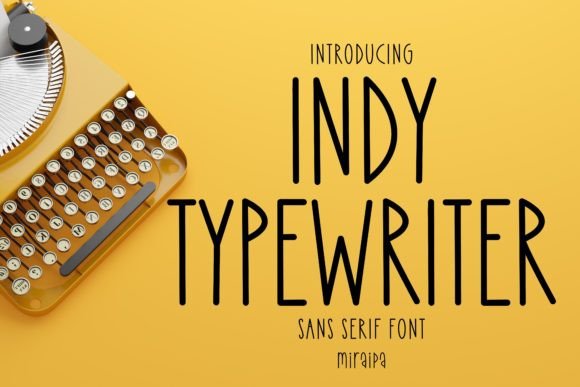
Introducing Indy Typewriter Font, the perfect addition to your font collection! Created by the talented miraipa, this modern and friendly handwritten sans serif font is specifically designed to elevate your projects and add a touch of charm to your diary planner.
With Valentine's Day just around the corner, Indy Typewriter is the ideal choice to set the mood and capture the essence of love and romance. Its unique style and captivating curves will mesmerize your audience, making it the best font for all your Valentine's Day endeavors.
But don't limit yourself to just one occasion! This versatile font is suitable for a wide range of projects, from wedding invitations and love letters to greeting cards and social media posts. Its timeless appeal will ensure that your messages are delivered with utmost elegance and sophistication.
Indy Typewriter is more than just a font – it's a creative companion that will breathe life into your DIY projects. Whether you're designing a personalized gift, crafting a heartfelt message, or simply expressing your emotions, this font will enhance your creativity and allow your ideas to shine.
Adding Indy Typewriter to your fonts library is a must for any design enthusiast or aspiring artist. Its extensive character set and exquisite attention to detail make it a valuable asset for professionals and beginners alike. Embrace its beauty, and watch as your creations come to life with a touch of magic.